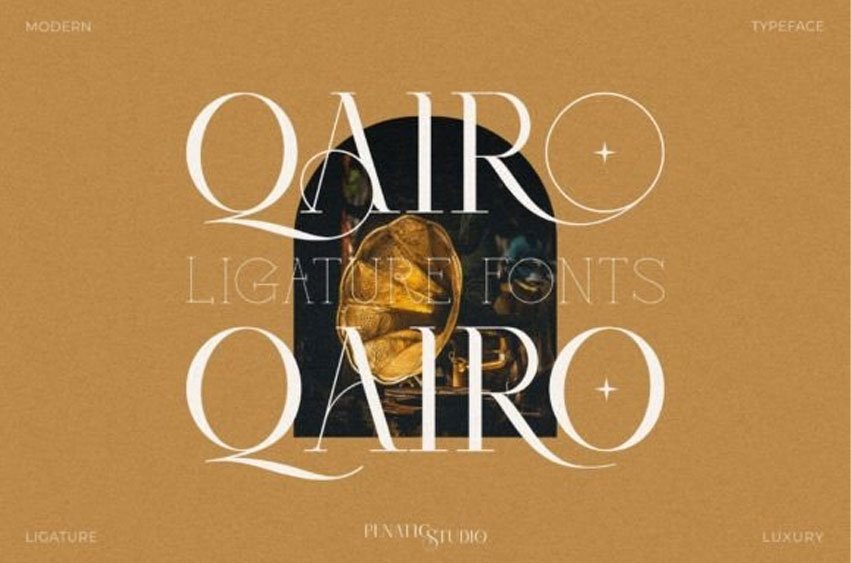
Qairo Font is a very classy and modern serif font that uses multiple ligatures and font substitutions. Users can choose to make variations or designs on the letters easily.
Very suitable for use in various applications, including brand identity, invitations, magazines, logo designs, and others. This font is PUA encoded, which means you can access all of the glyphs and swashes with ease!